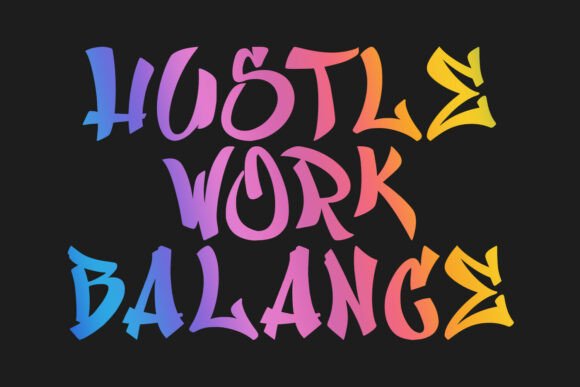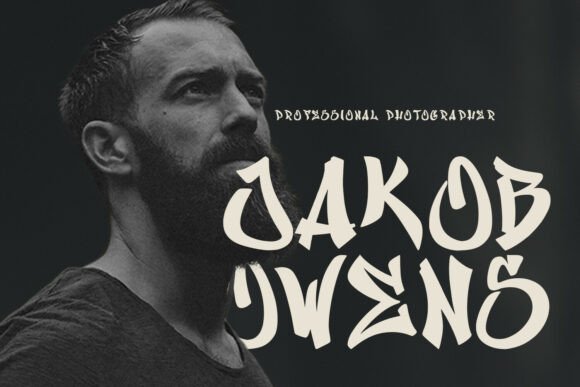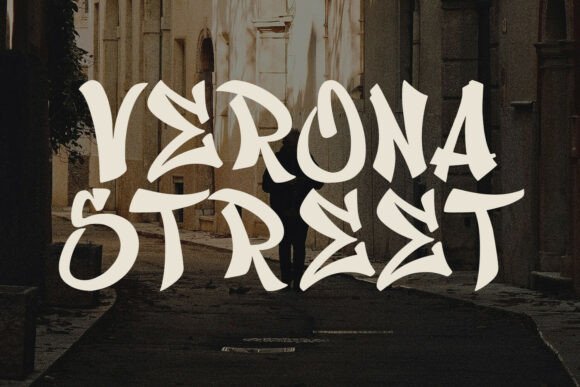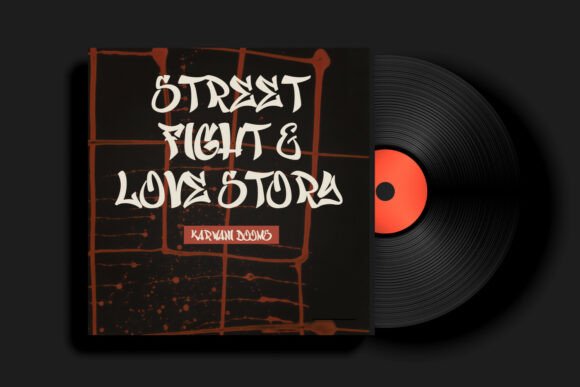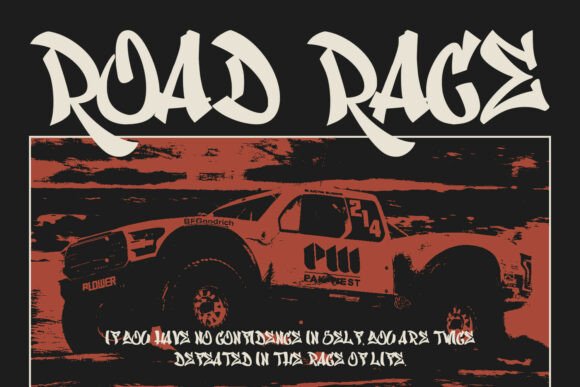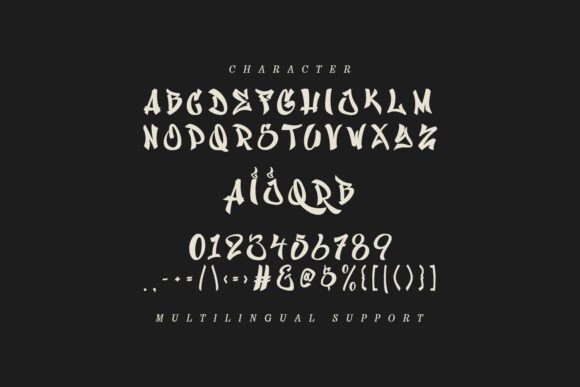
Introducing Alliaqz Font: Unleash the Urban Energy in Your Designs
In the world of typography, fonts play a crucial role in conveying the tone and personality of a brand or design. For those seeking a bold and expressive font that embodies the spirit of urban street art, look no further than Alliaqz Font. This graffiti display font is designed to inject a dose of edgy, rebellious vibes into your projects, making it perfect for posters, music covers, skate brands, and more.
The Essence of Alliaqz Font
Alliaqz Font is a masterful blend of sharp strokes and dynamic curves, capturing the raw essence of street art. Its bold and expressive design makes it an ideal choice for designers and crafters looking to add a touch of urban grit to their work. The font’s unique character is reminiscent of graffiti tags, stencils, and urban murals, evoking the energy and spontaneity of street art.
Key Features of Alliaqz Font
- Bold and Expressive Design: Alliaqz Font boasts a bold and expressive design that commands attention. Its sharp strokes and dynamic curves create a sense of movement and energy.
- Urban Energy: This font is infused with the raw energy of street art, making it perfect for projects that require an edgy, rebellious vibe.
- Versatile: Alliaqz Font can be used for a variety of projects, including posters, music covers, skate brands, and more.
- Easy to Read: Despite its bold design, Alliaqz Font is easy to read, making it a great choice for headlines, titles, and short phrases.
Use Cases for Alliaqz Font
Alliaqz Font is a versatile font that can be used in a variety of contexts. Here are some use cases to inspire your creativity:
- Posters and Flyers: Add a bold, eye-catching title to your posters and flyers with Alliaqz Font.
- Music Covers: Give your music covers a rebellious edge with Alliaqz Font.
- Skate Brands: Perfect for skate brands, Alliaqz Font embodies the spirit of street culture.
- Streetwear and Fashion: Use Alliaqz Font to add a touch of urban grit to your streetwear and fashion designs.
Tips for Using Alliaqz Font
To get the most out of Alliaqz Font, here are some tips to keep in mind:
- Use it boldly: Alliaqz Font is designed to make a statement, so don’t be afraid to use it boldly.
- Experiment with colors: Try pairing Alliaqz Font with bold, bright colors to amplify its urban energy.
- Mix and match: Combine Alliaqz Font with other fonts to create a unique, eye-catching design.
In conclusion, Alliaqz Font is a bold and expressive graffiti display font that bursts with urban energy. With its sharp strokes and dynamic curves, it captures the raw essence of street art. Perfect for designers and crafters looking to add an edgy, rebellious vibe to their projects, Alliaqz Font is a versatile and easy-to-use font that’s sure to make a statement.